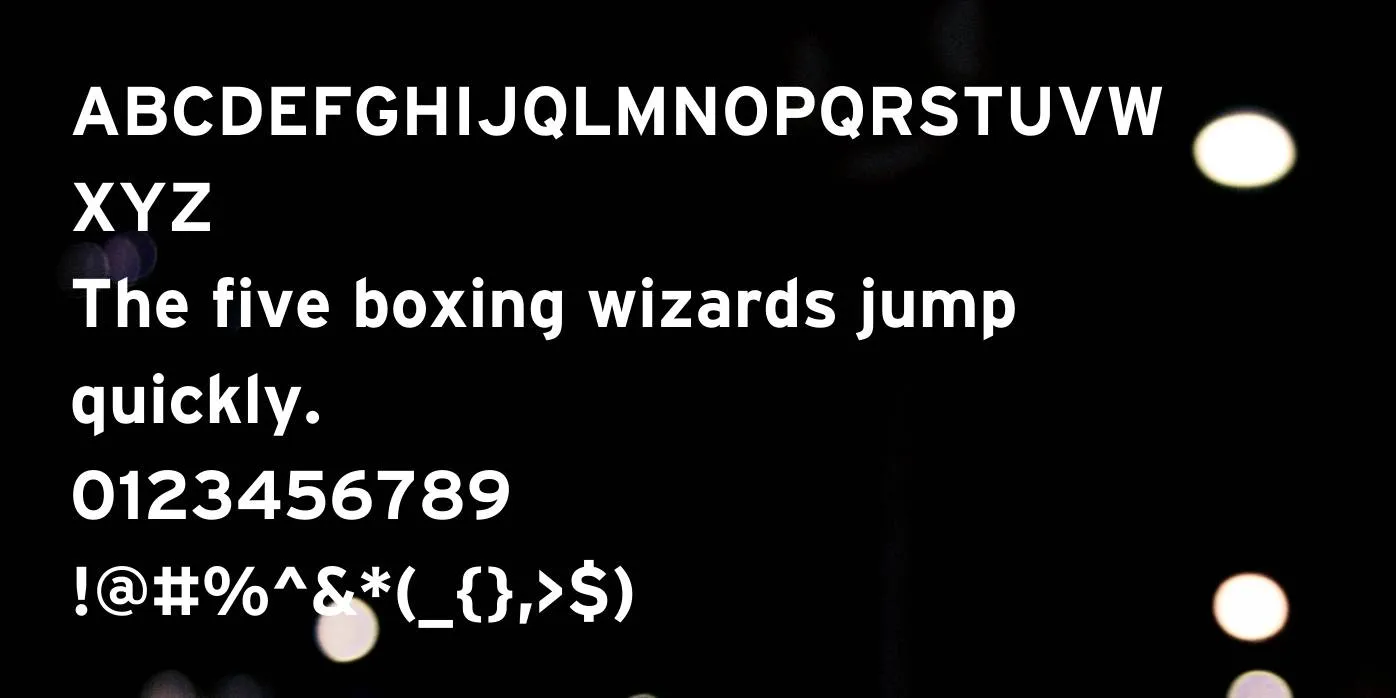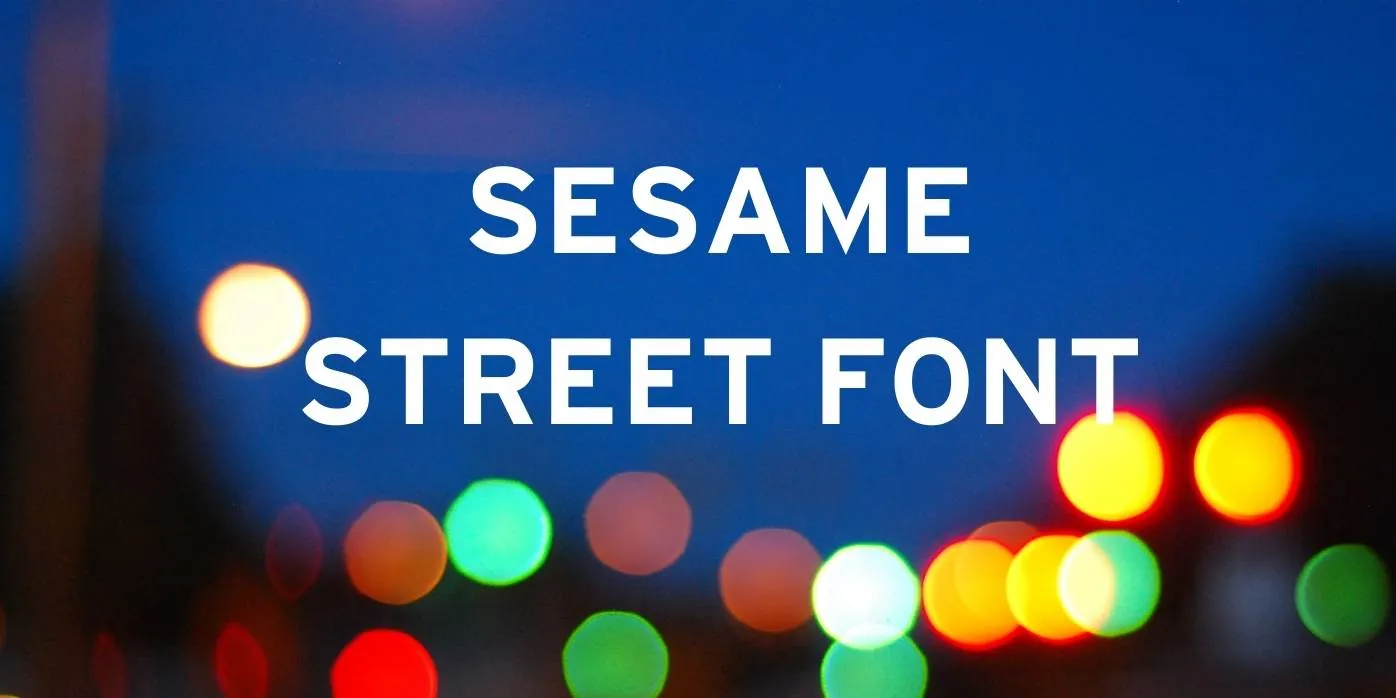
Sesame Street Font
Let’s here we present a stylish and clean Sans Serif typeface known by the name Sesame Street font. This stylish font family was created by an intelligent designer Tobias Frere Jones. For the American television series, this font family was basically inspired. Firstly it was released on 10 November 1969.
This typeface has various types of features that help you in your designs and functions. There are great choices of fonts are available but this amazing and staggering type font is best for all of your projects and their solutions. The results of your projects are flawless. you must use this typeface for the attraction of your clients.
You can use this classy typeface for better performance in your designs and graphics. This typeface supports a large number of languages. This typeface comes in different styles and numeral that provides a unique edge to your functions. If you want to make all high-quality designs you can easily use this beautiful typeface with the pairing of Circe Font.
Its features are clean and advanced which is why it is used everywhere all over the world. The bold letter texture of this typeface makes it clear and simple.